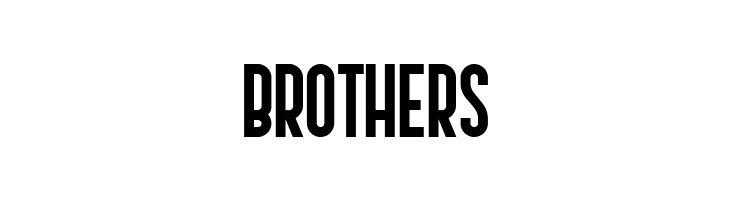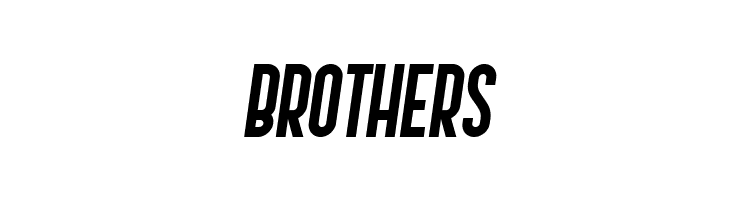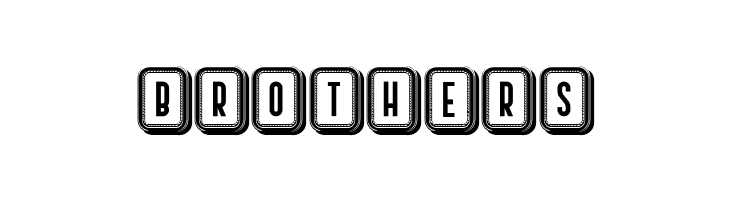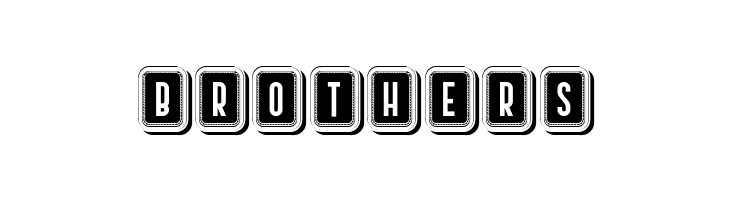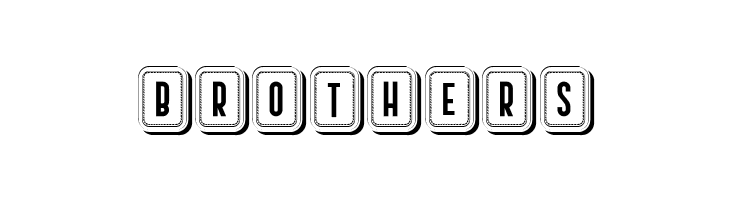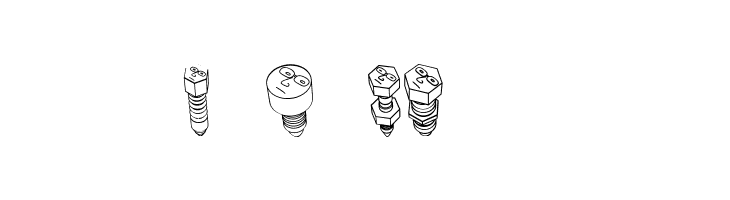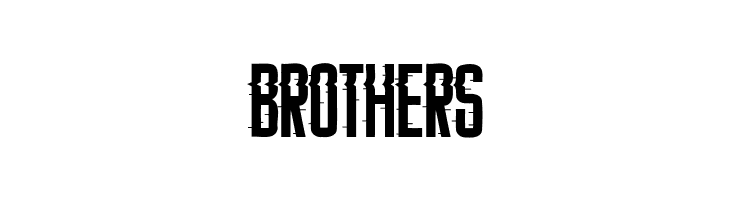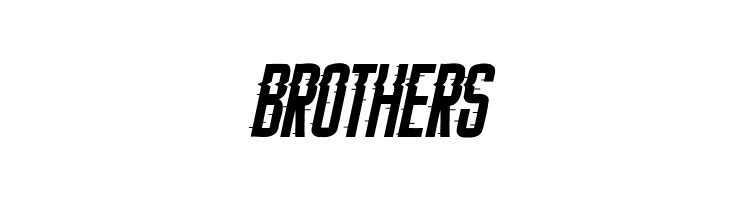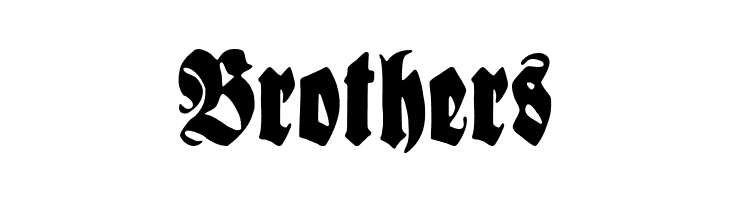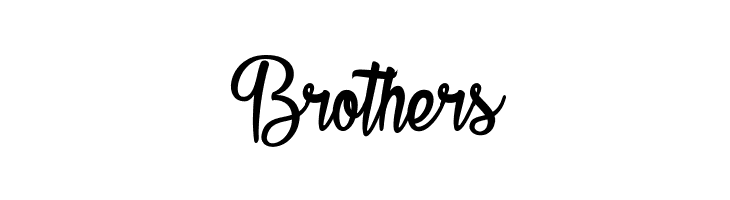
A clean, modern italic font with smooth curves and excellent readability.
A modern sans-serif font with clean lines and uniform stroke thickness.
A classic serif font with a modern twist, offering elegance and readability.
A sleek, modern italic font with smooth, slightly slanted letterforms.
A modern, clean sans-serif font with geometric letterforms.
A bold, gothic blackletter font with intricate details and a historical feel.
A bold, ornate blackletter style font with intricate details and dramatic flair.
A bold, playful handwritten font with smooth, flowing lines and a casual style.
A bold, handwritten font with fluid strokes and a casual, energetic style.
A cursive, handwritten font with smooth, connected letters and a classic school script style.
A clean, modern sans-serif font with uniform stroke width and excellent readability.
A bold, hollow font with a vintage, three-dimensional style.
A bold, decorative font with a three-dimensional, framed design.
A bold, decorative font with geometric shapes and a vintage feel.
A bold, italic font with tight spacing and a modern, dynamic style.
A bold, tall, and narrow font with a strong geometric structure.
A bold, angular font with a futuristic and industrial design.
A bold, decorative font with a distressed, graffiti-like style.
A playful, industrial-themed font where each character is a uniquely designed screw.
A distressed, grungy font with a chaotic and textured appearance.
A bold, angular font with a dynamic and modern style.
A bold, italic font with a modern, digital aesthetic and sharp angles.
A bold, glitch-inspired font with a modern, distressed look.
A bold, futuristic font with geometric shapes and thick outlines.
A bold, italic, futuristic font with angular, double-layered letterforms.
An elegant and decorative script font with flowing, ornate characters.
A playful, elegant script font with a handwritten style.